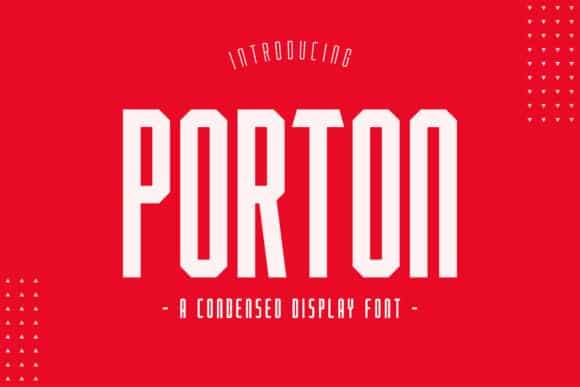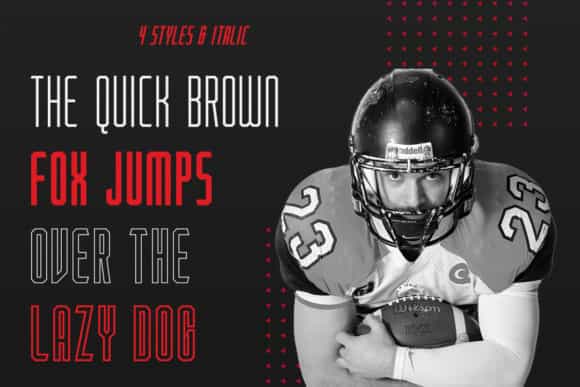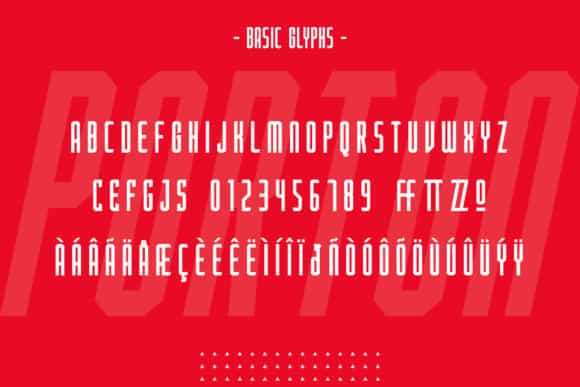
PORTON Display Font
Porton Display Font is a display font that is condensed in nature and has been designed by fadielm70. This is high contrast display sans serif that is based on the aesthetics of modern style typefaces. Porton Font is a specially designed font that is used for different functions.